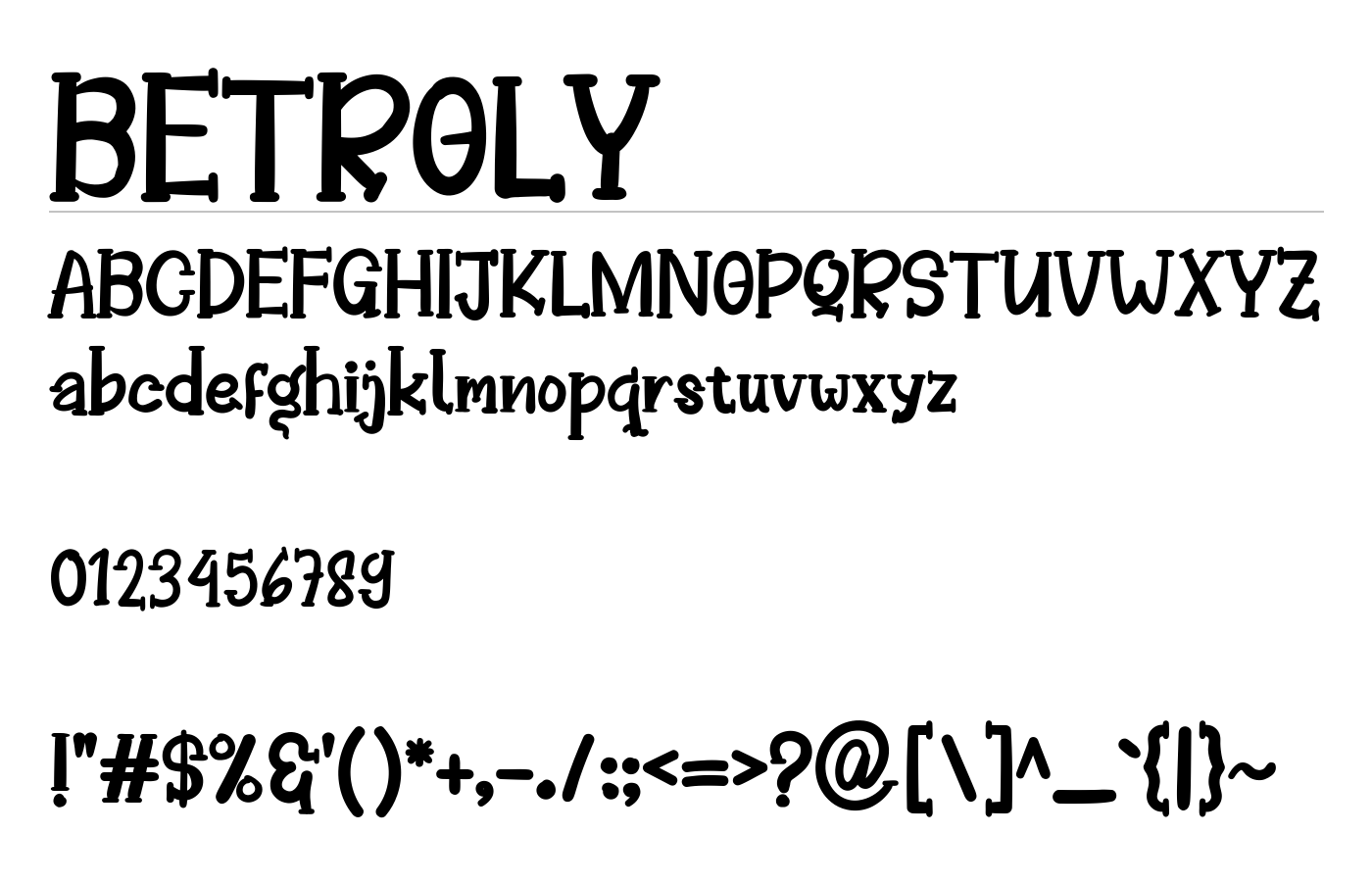
Betroly is a playful and quirky sans serif font with a hand-drawn feel, featuring irregular strokes and rounded terminals that give it a friendly, informal personality. Its moderate weight and slightly condensed proportions make it suitable for creative projects, children's books, or casual branding where a fun, approachable vibe is desired. The mix of uppercase and lowercase letters with unique character details adds charm and distinctiveness, making it ideal for headlines, logos, and designs seeking an artistic, whimsical touch.
BETROLY Font